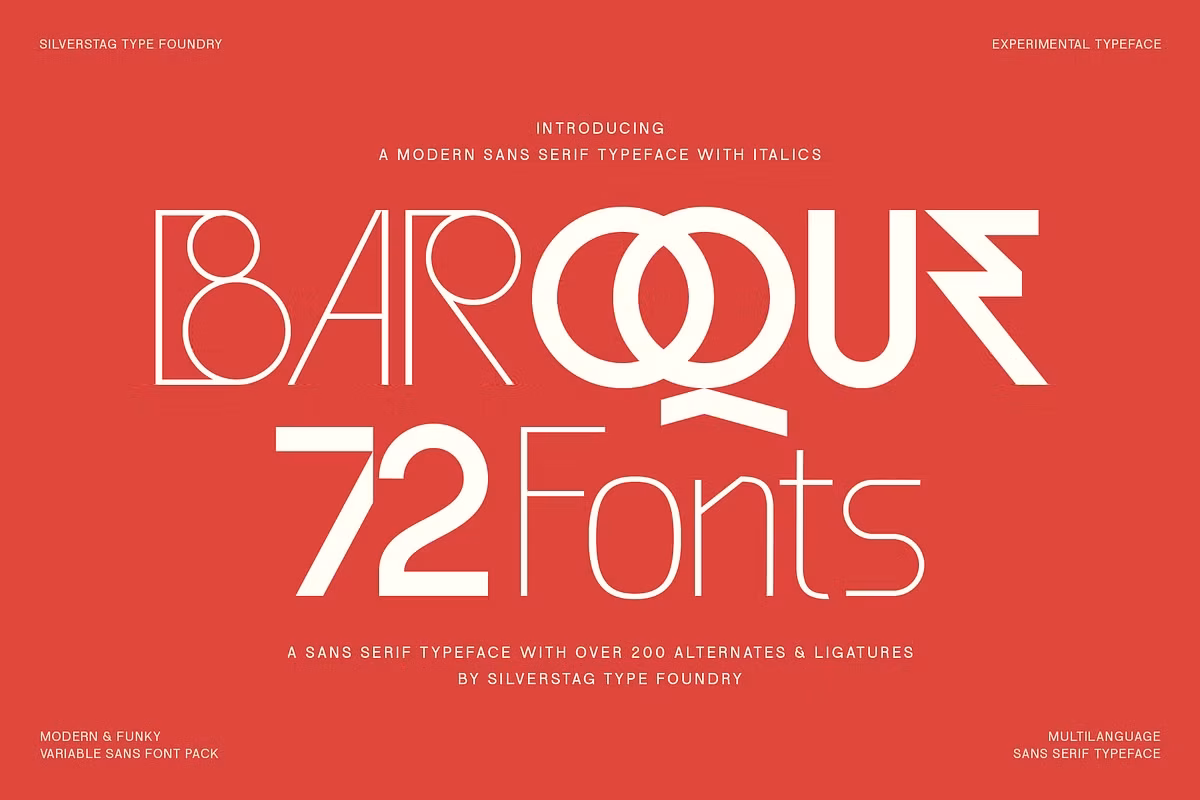
Bold, versatile, and highly comprehensive, Baroque Grotesk Typeface (72 Fonts) Free Download is an expansive font family featuring 72 different fonts, offering a wide range of weights, widths, and styles. This makes it an excellent choice for a variety of design projects, from branding and logos to editorial layouts, websites, and advertising campaigns.
With its clean, modern, and geometric shapes, Baroque Grotesk combines the timeless appeal of grotesque sans-serif typography with the flexibility needed for diverse design applications. Whether you’re working on professional business branding, minimalist designs, or creative digital content, this extensive font family provides the perfect combination of functionality and style.